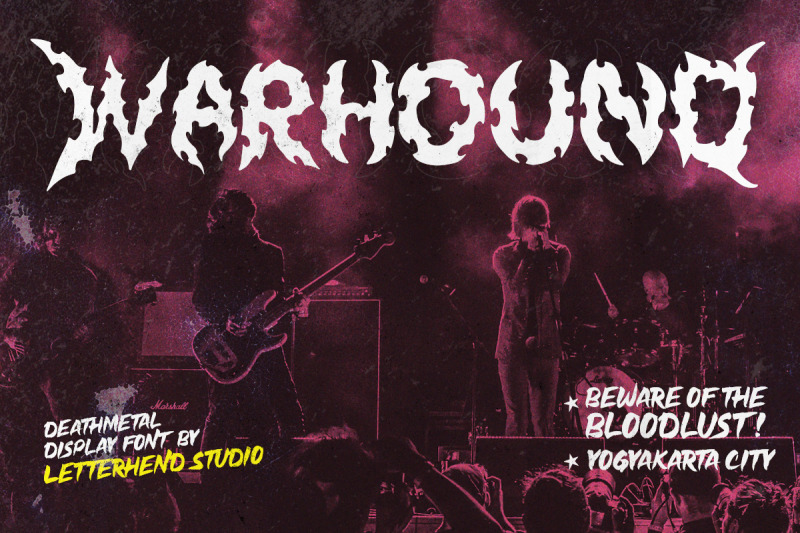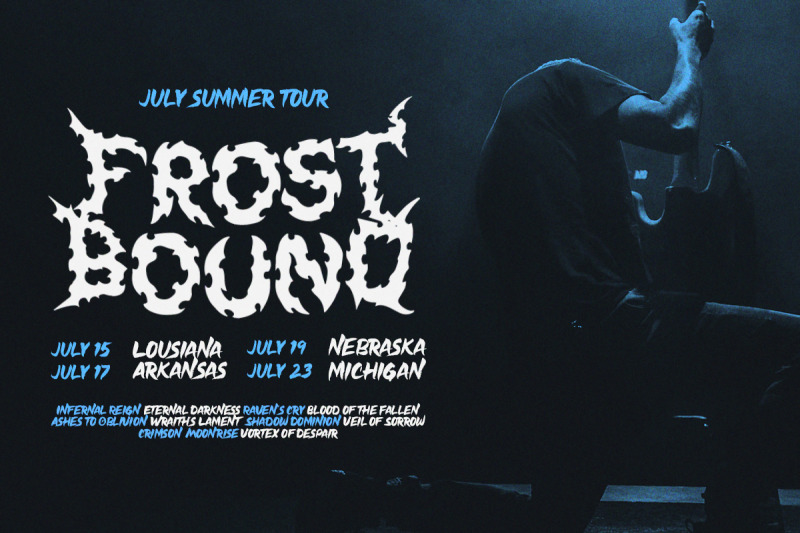
Crank up the volume! The death metal font you've been waiting for has arrived. With its chainsaw-inspired edge, Warhound brings hardcore black metal vibes to your designs. Perfect for creating fierce logos, bold event posters, striking labels, and more. Mix and match alternate characters to give your project a wickedly unique twist. Unleash the beast with Warhound!
Uppercase & lowercase
Numbers and punctuation
Multilingual support